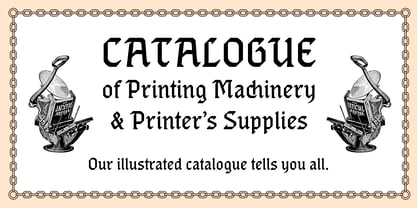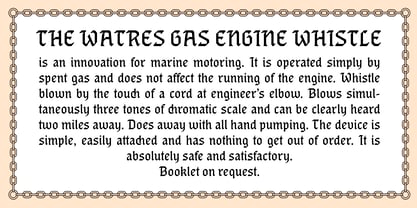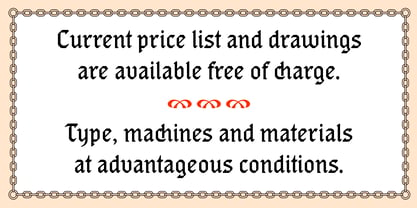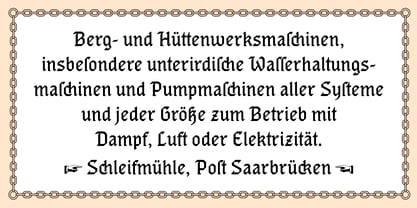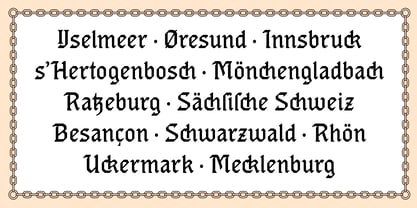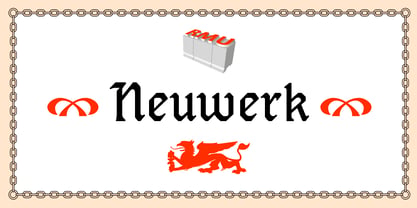
Neuwerk™
by RMU
The Neuwerk Font Family was designed by Ralph M. Unger and published by RMU. Neuwerk contains 1 styles. More about this family
‘Neuwerk’ is a redesign of C. F. Ruehl’s ‘Neudeutsch’. When I compared the original font with the type forms used in various ads from the turn of the 19th century, I discovered that some type forms underwent an alternation. This font was then very popular in industrial ads, like for machineries etc.
‘Neuwerk’ comes with several standard and discretionary ligatures. So it is recommended to activate both OT features.
Designers: Ralph M. Unger
Foundry: RMU